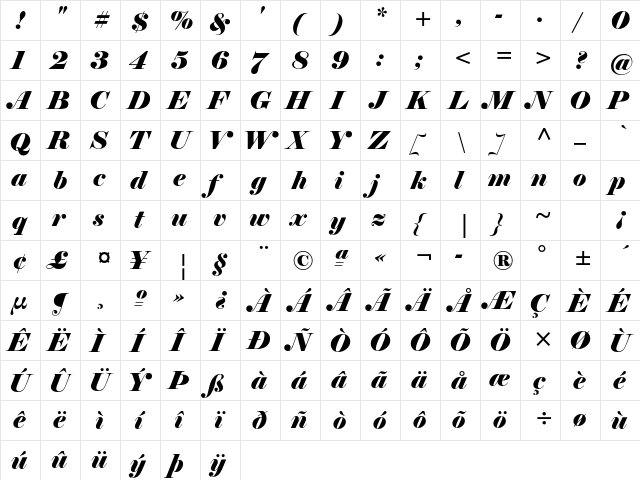
Elephant Italic Font Preview
Elephant Italic
Elephant Italic Font Details
Design Context for Elephant Typeface
Elephant offers clean, dependable letterforms without strong stylistic allegiance, making it a practical choice for designers who need flexibility. The dynamic lean of this cut emphasises speed and emphasis in any layout.
Pro Tip: Try Elephant for annotation and caption copy alongside an upright companion — the contrast in angle creates a dynamic but ordered typographic system.